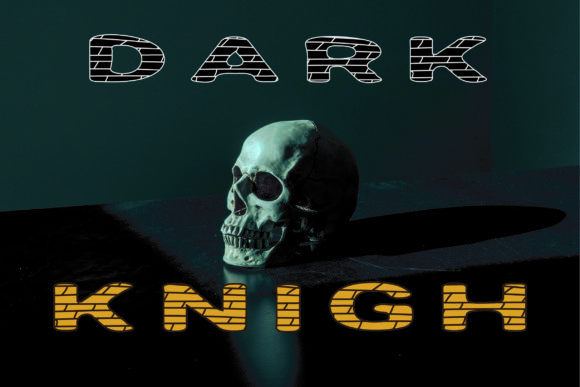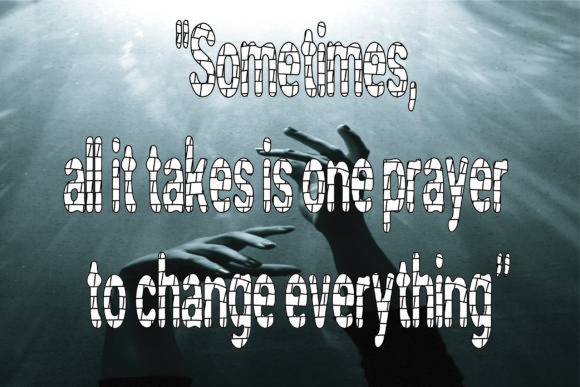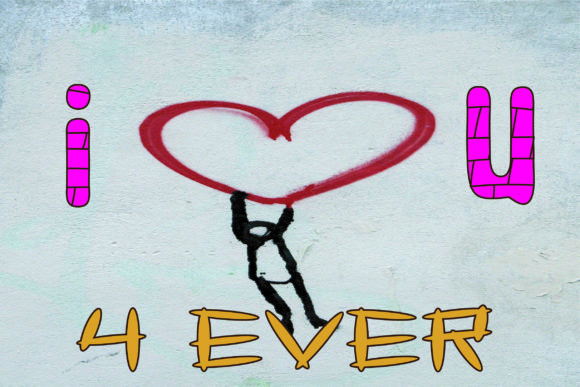
The Perfect Touch of Vintage Charm: Discovering the BattaSoka Font
Have you ever stared at a blank canvas, waiting for inspiration to strike? You’re not alone. As creatives, we’ve all been there – stuck between a sea of possibilities and a blank slate. But what if I told you there’s a font that can transport you back in time, infusing your designs with a touch of vintage charm?
Enter the BattaSoka Font, a stylish display font that’s perfect for adding a nostalgic flair to your projects. Whether you’re crafting a logo, designing a greeting card, or creating a blog post, this font is sure to elevate your work. As a designer, you know how valuable it is to have a versatile tool like the BattaSoka Font in your arsenal. Its unique blend of cool and vintage styles makes it a valuable addition to any design collection.
- Unique Characteristics: BattaSoka Font features a unique blend of modern and traditional design elements, making it suitable for a wide range of applications, including logos, headings, and body text.
BattaSoka Font Review
I recently had the chance to work with the BattaSoka font, and I must say, it’s a unique addition to any design project. ✨
- The BattaSoka font has a modern and edgy feel to it, perfect for projects that require a bold statement.
- The font’s versatility allows it to be used in a variety of contexts, from headings to body text.
- The font’s bold weight is particularly striking, making it ideal for titles and emphasis.
- The BattaSoka font can be a bit difficult to read at smaller sizes, particularly in body text.
- The font’s irregularities may not be suitable for projects that require a high level of precision and uniformity.
- The font’s availability in a limited range of languages may be a concern for multilingual projects.
While the BattaSoka font has its limitations, I think it’s a great choice for projects that require a bold and modern look. With careful consideration of its limitations, it can be a fantastic addition to any design project.
Use the BattaSoka font for headings and titles to add a unique touch to your designs.
Combine the BattaSoka font with other fonts to create a unique and eye-catching typography.
The BattaSoka font is perfect for:
Designing creative headings and titles.
Creating unique and eye-catching social media graphics.
Developing distinctive brand identities.
Alternatives to BattaSoka Font for Designers
Montserrat is a sans-serif font designed for digital use. It’s a great alternative for BattaSoka Font when you need a clean and modern look for your designs. Montserrat is more versatile and can be used for both body text and headings, whereas BattaSoka Font is more suitable for titles and emphasis.
Comparison: Montserrat is more legible and has a wider range of weights and styles than BattaSoka Font.
Open Sans is a modern sans-serif font that’s highly legible and suitable for body text. It’s a great alternative for BattaSoka Font when you need a clear and readable font for your designs. Open Sans is more neutral and doesn’t have the same level of emphasis as BattaSoka Font.
Comparison: Open Sans is more readable and has a more neutral tone than BattaSoka Font, making it a great choice for body text.